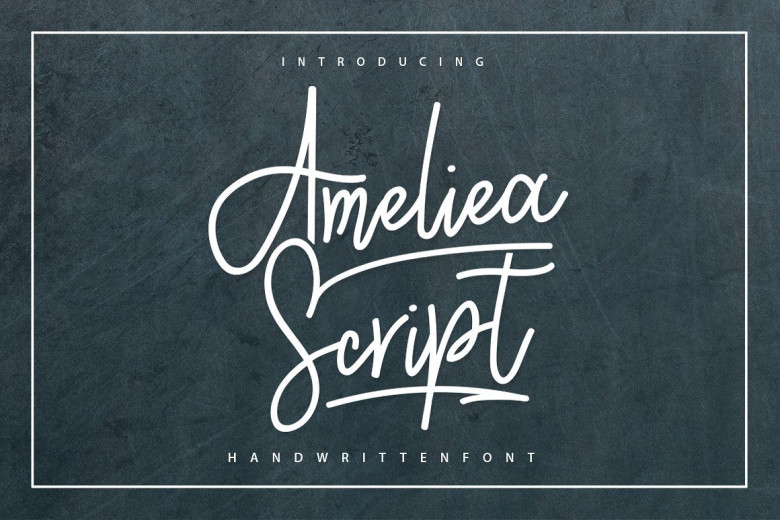
Ameliea Script Font
Are you looking for a handwriting? Or simply a nice typography for your collection. I would like to introduce you to a new free font, it is really perfect and clean. Introducing Ameliea Script Font! Ameliea Script designed by sizimon. Ameliea Script is clean & classy signature-style font set . Very cool for logos, name tag, handwritten quotes, product packaging, merchandise, social media & greeting cards. And very easy to make design t-shirts and other products. Very save time in making the design of a product.